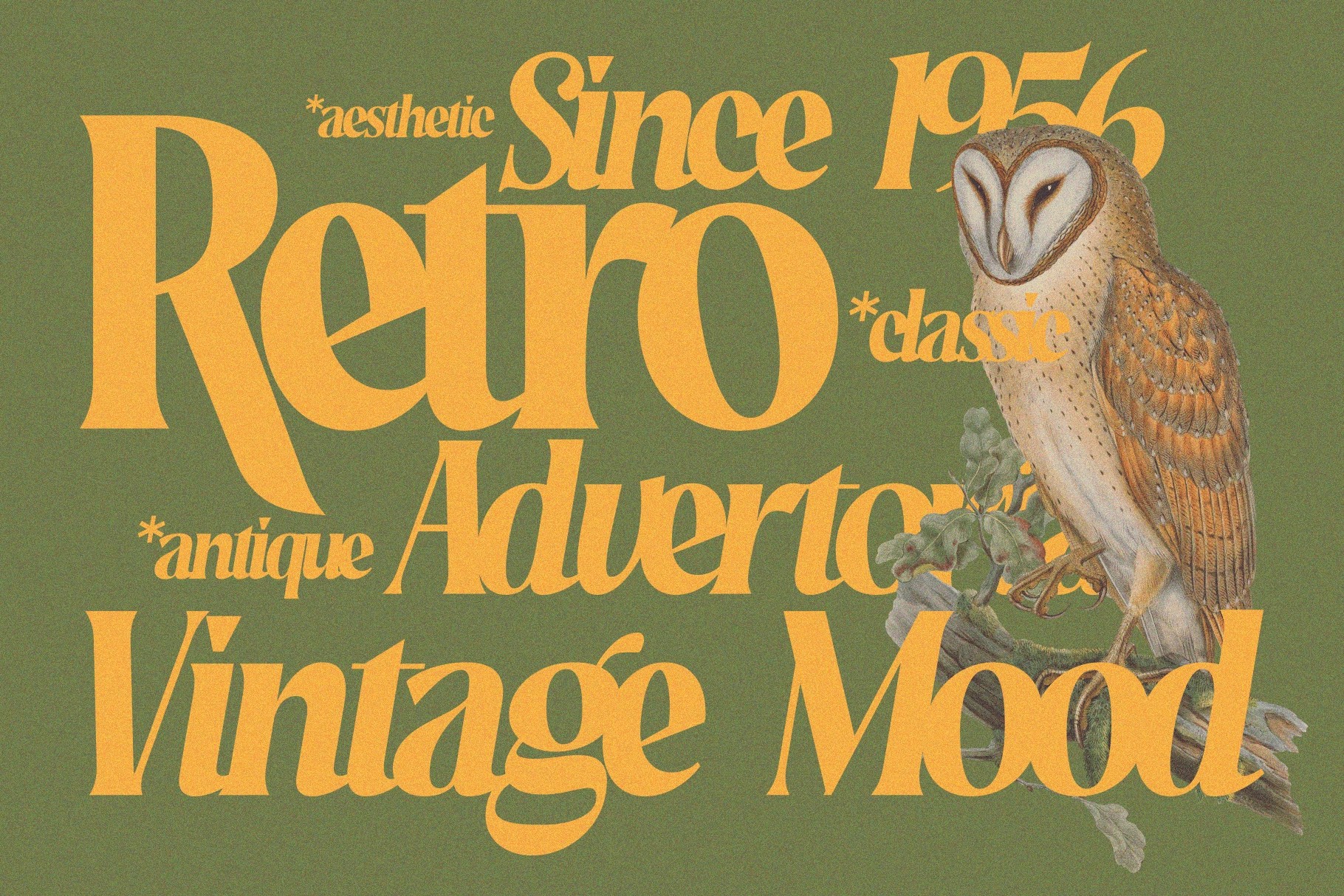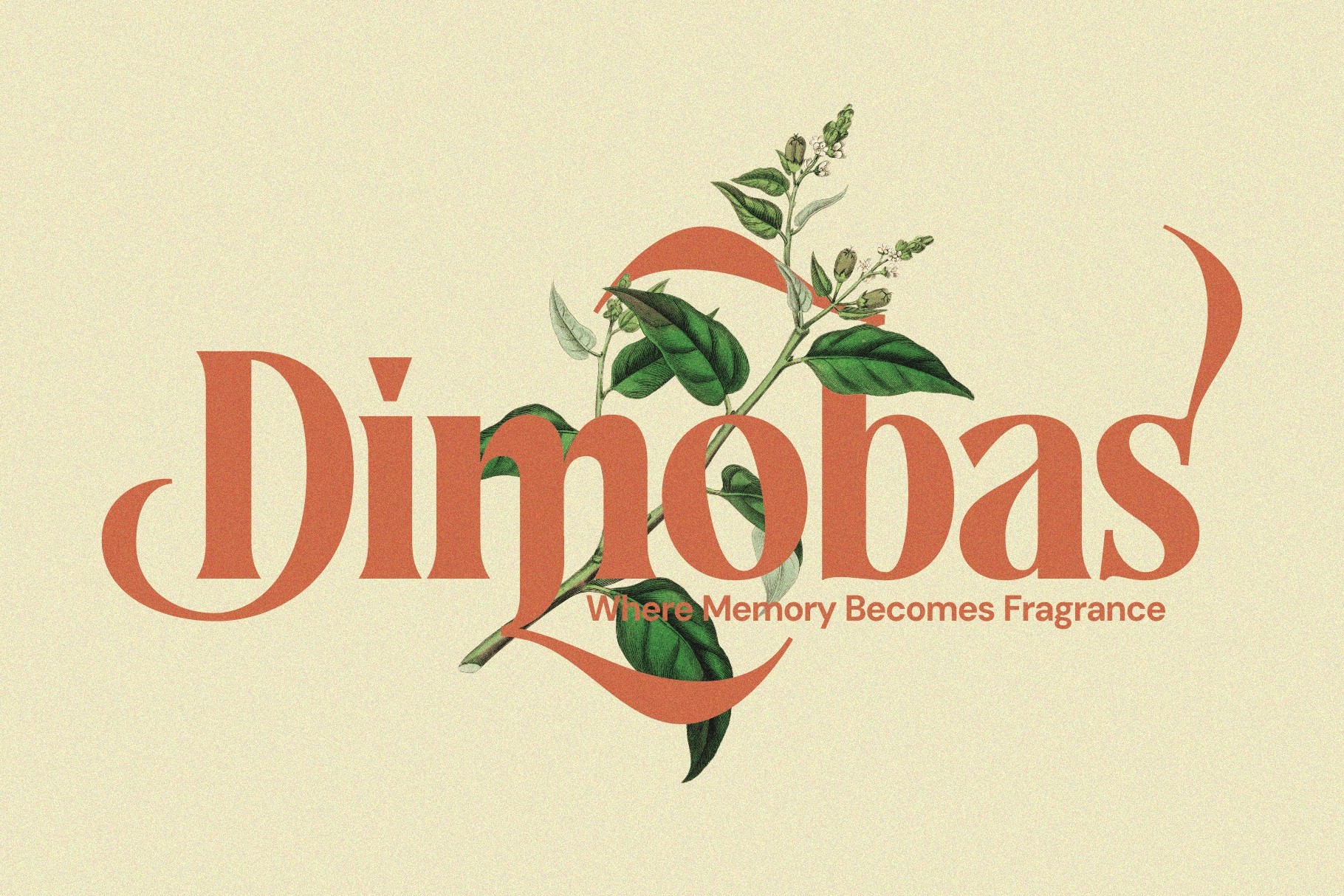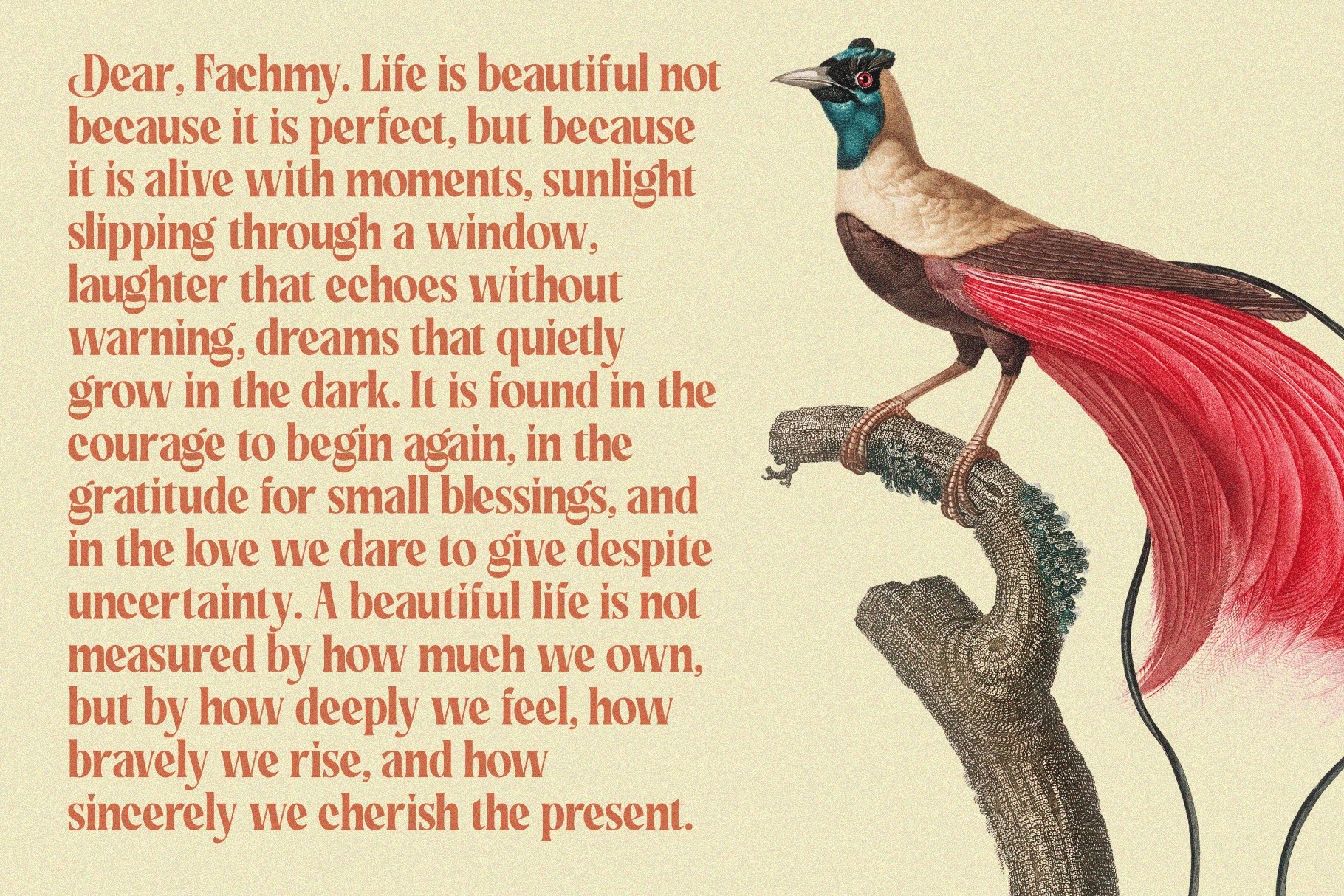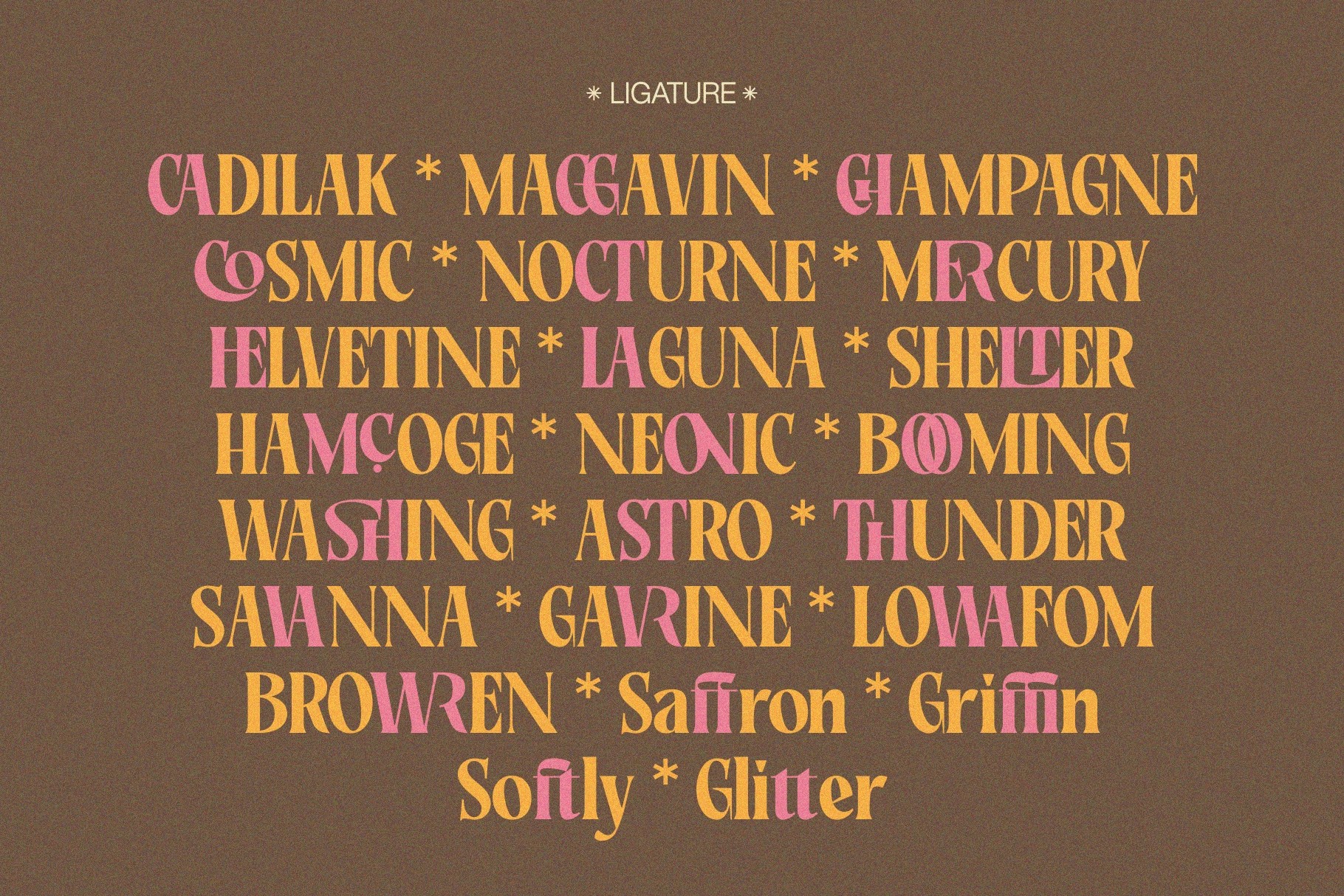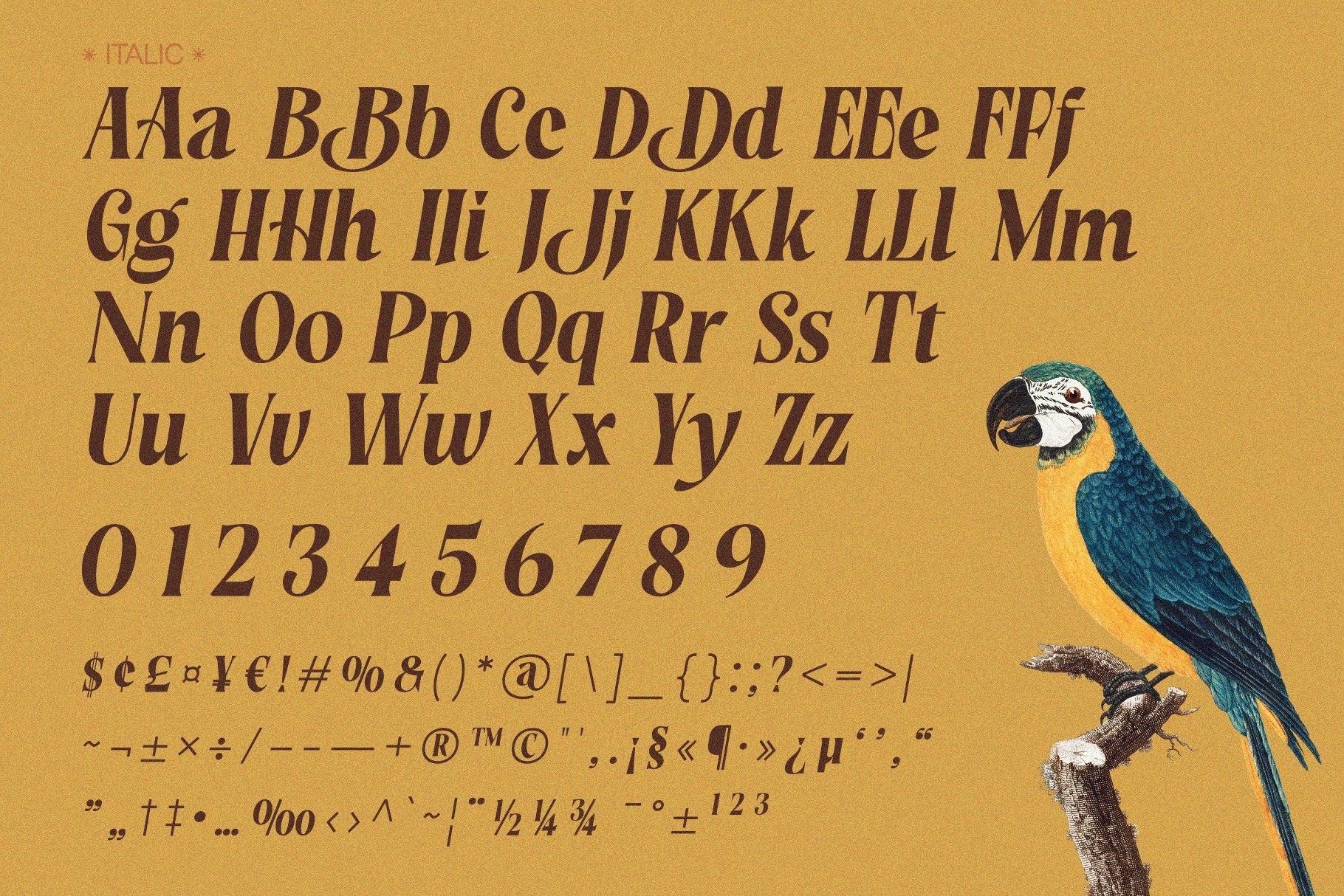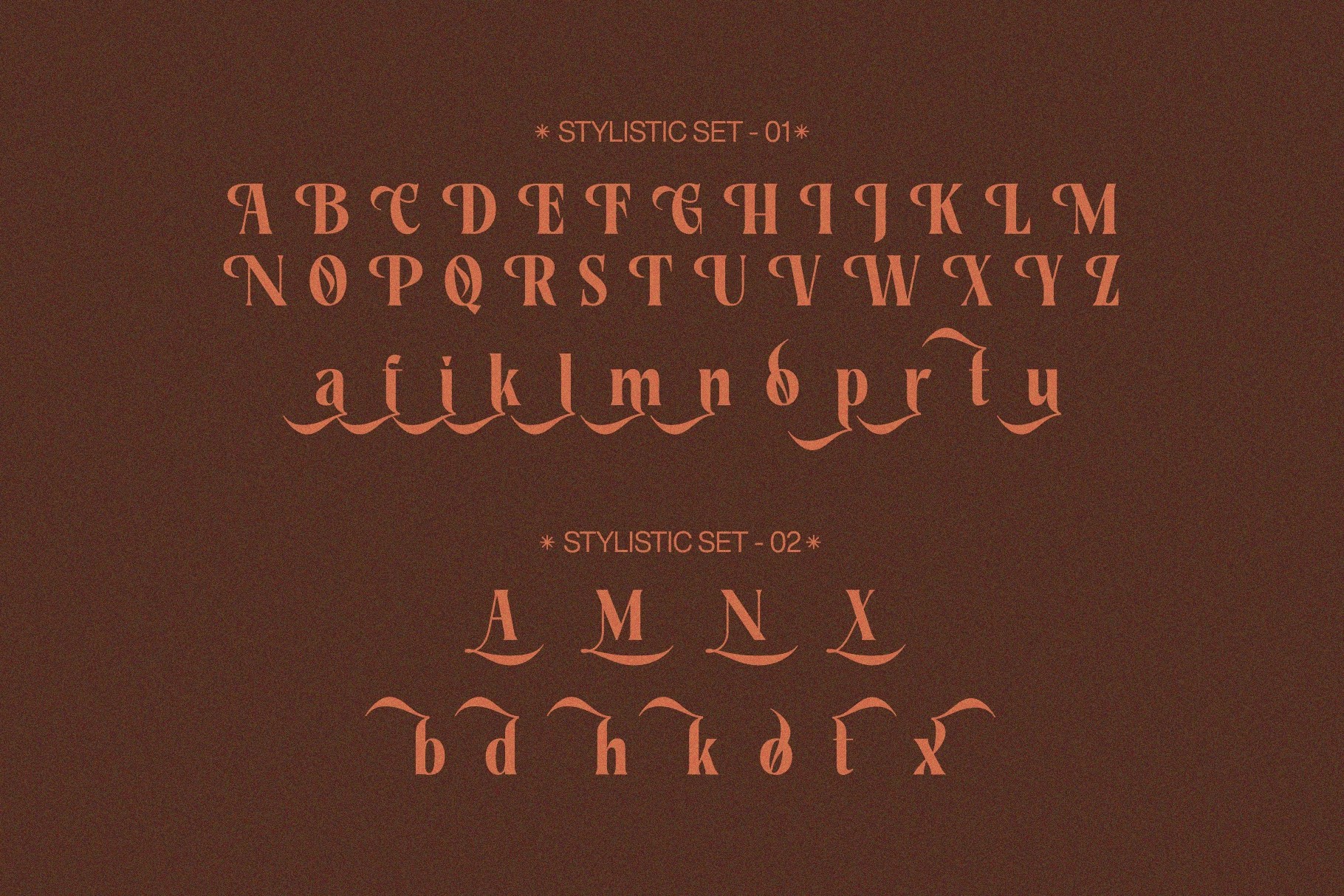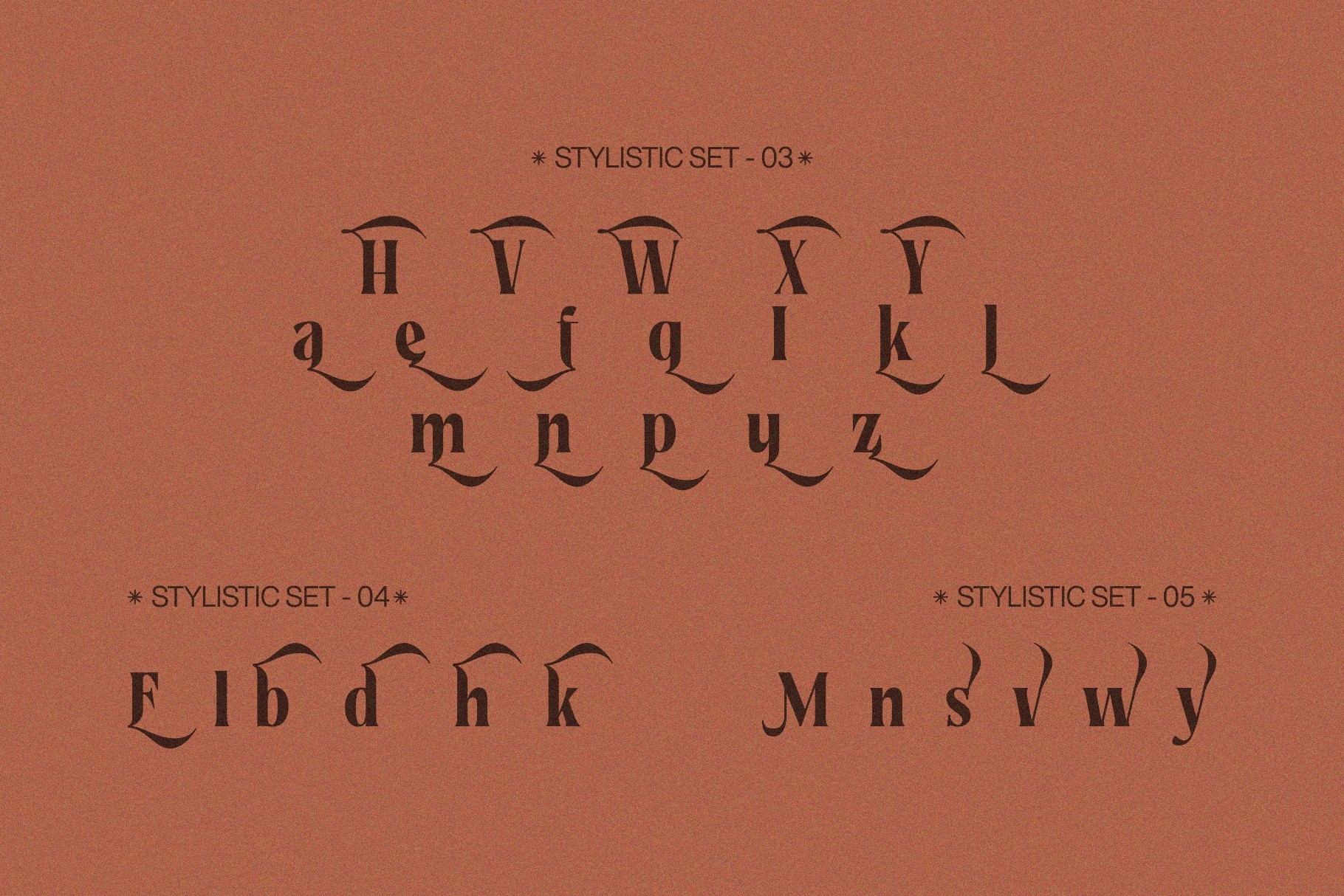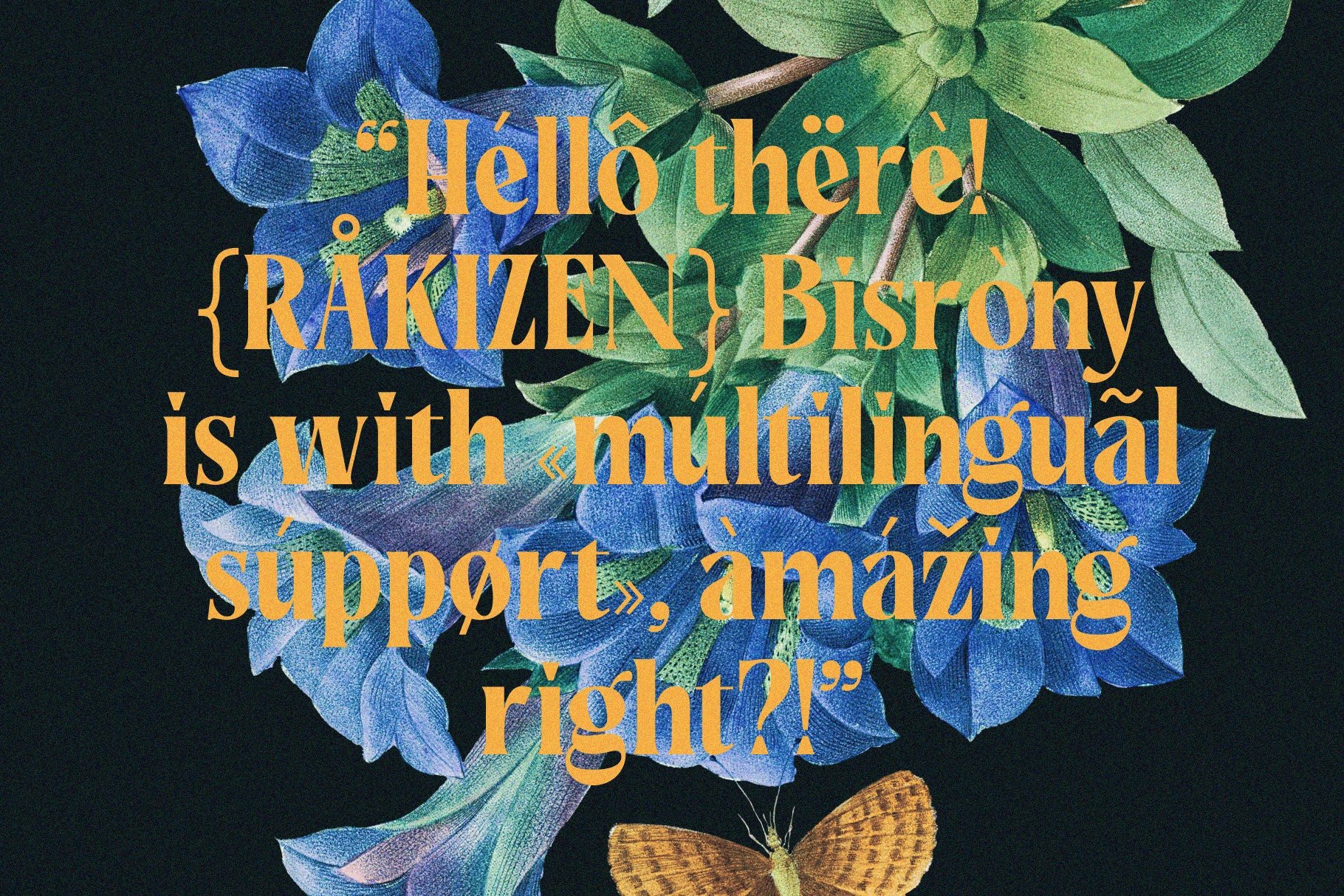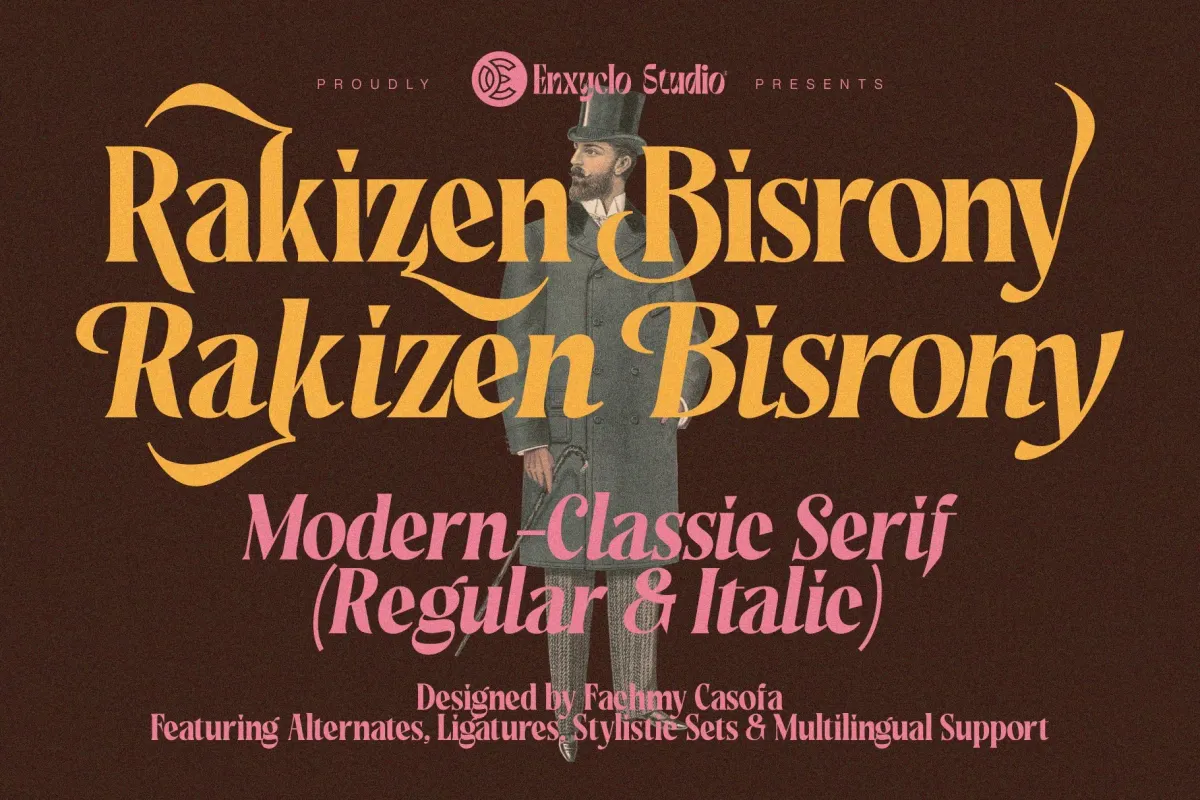
Rakizen Bisrony - Vintage Elegant Serif Font
Rakizen Bisrony - Vintage Elegant Serif Font is a refined modern-classic serif that blends timeless sophistication with contemporary clarity. Designed with balanced proportions and elegant detailing, this typeface delivers a luxurious visual presence suited for premium branding and editorial compositions. The carefully crafted letterforms and subtle contrast create a polished, high-end aesthetic that feels both graceful and powerful.
Available in Regular and Italic, Rakizen Bisrony provides flexibility for expressive typography. The Regular style ensures clean structure and confident readability, while the Italic introduces fluid elegance and refined emphasis—perfect for creating hierarchy and stylish contrast across logos, headlines, packaging, and brand systems.
- 2 Styles: Regular & Italic
- Uppercase & Lowercase Characters
- Alternates Included
- Stylistic Sets (1–5)
- Punctuation Marks
- Symbols & Special Characters
- Currency Symbols